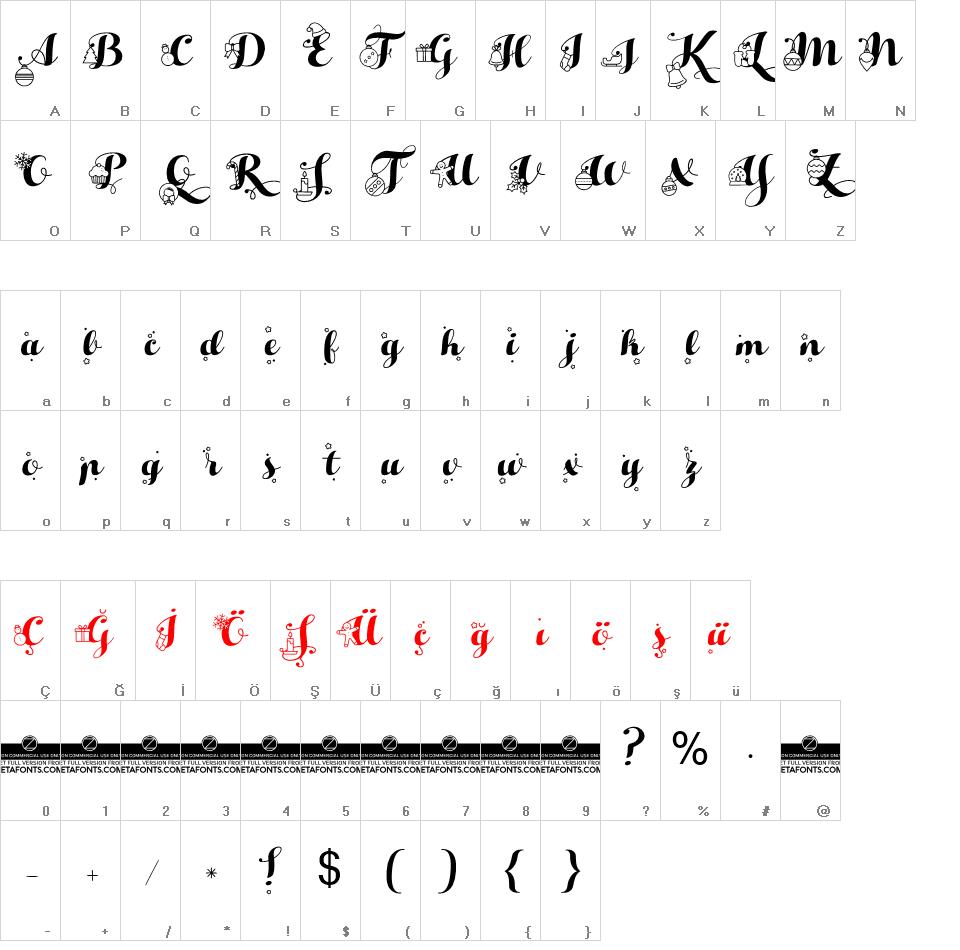
Hello Christmas font
Hello Script is a high contrast calligraphic script designed by Cosimo Lorenzo Pancini, featuring monoline swashes and terminals and strong, round body shapes designed with a parallel nib. It covers over 40 languages that use the Latin alphabet, with full range of accents and diacritics, and comes with over ten different swashes and two decorative fill typefaces (Hello Script Fill and Hello Script Striped Fill) to use as multilayer colour fonts.